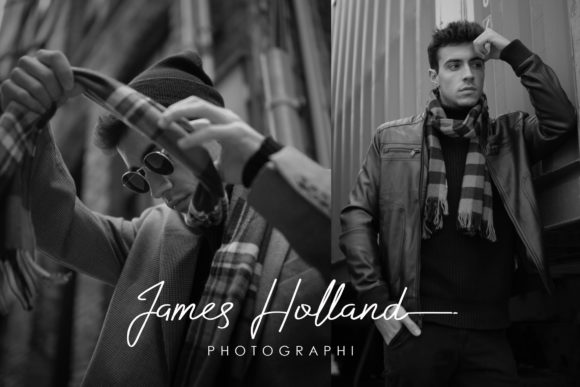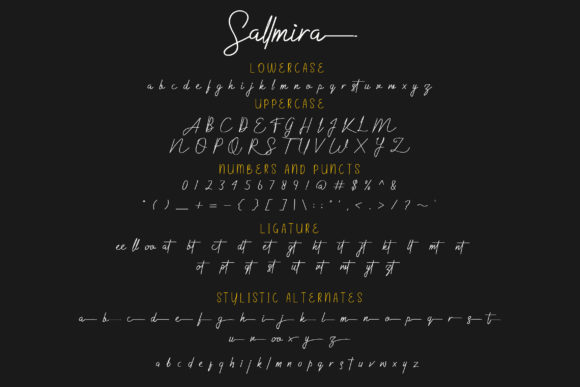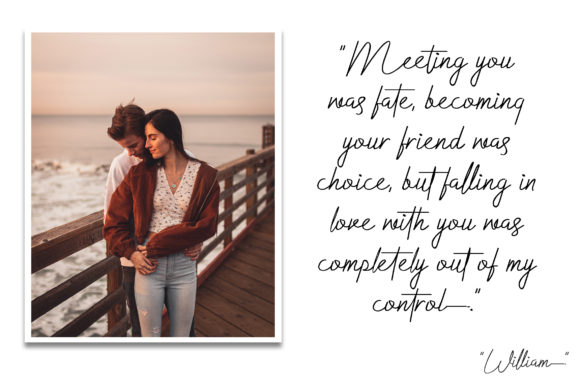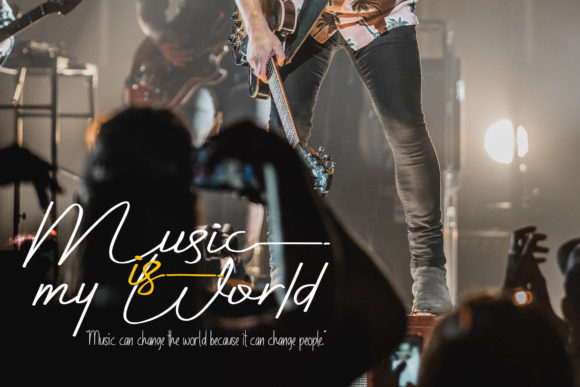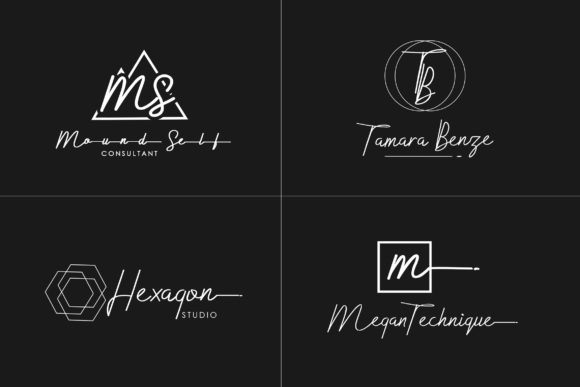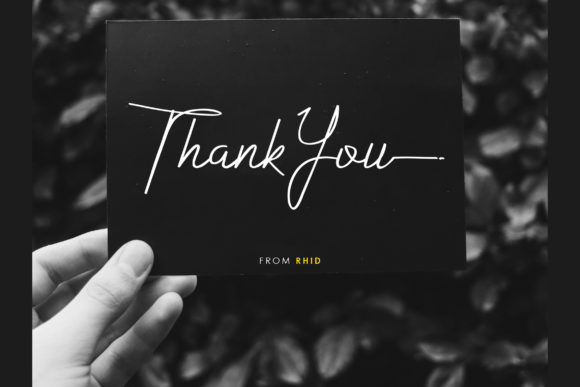
Introduction to Sallmira Font Font
Fonts play a crucial role in design, and the Sallmira Font font is a typeface that brings both character and versatility to any project. Whether you’re working on a branding project, a website, or a print design, the Sallmira Font font offers a unique style that can elevate your work.
Sallmira is inspired by classic typography and brings its own unique style to any design project.
This fantastic handwritten font is best suited for headlines of all sizes, as well as for blocks of text that have both maximum and minimum variations .
Key Features of Sallmira Font Font
Why Choose Sallmira Font Font?
The Sallmira Font font is more than just a typeface – it’s a design tool that helps you communicate your message with style and clarity. Its unique character set and versatile design make it suitable for a wide range of applications, from elegant invitations to bold headlines.
With its carefully crafted letterforms and balanced proportions, the Sallmira Font font ensures readability and visual appeal across all mediums.
What makes Sallmira Font font special?
The Sallmira Font font stands out with its unique design, exceptional readability, and versatility across various design applications.